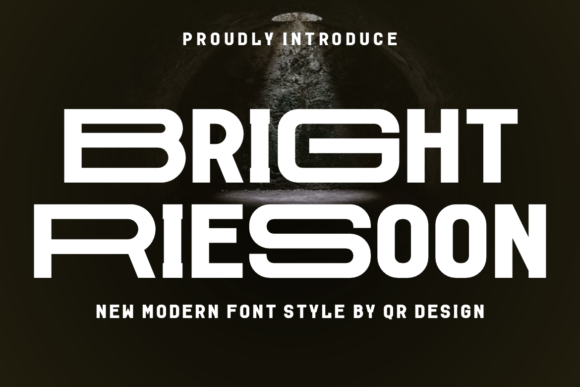
Introducing Bright Riesoon Font: The Ultimate Sans Serif for Stunning Visuals
In the world of typography, fonts play a crucial role in conveying messages, evoking emotions, and creating a lasting impression. When it comes to designing posters, banners, headlines, and other visual content, the right font can make all the difference. This is where Bright Riesoon Font comes into play – a cool and powerful sans serif font that can elevate your designs to new heights.
What is Bright Riesoon Font?
Bright Riesoon Font is a modern sans serif font that boasts a unique and captivating design. Its clean lines, precise curves, and carefully crafted letterforms make it an excellent choice for a wide range of applications, from advertising and branding to publishing and digital media.
One of the standout features of Bright Riesoon Font is its exceptional legibility, even at smaller font sizes. This makes it an ideal choice for body text, captions, and other applications where readability is paramount.
Why Choose Bright Riesoon Font?
So, what sets Bright Riesoon Font apart from other sans serif fonts? Here are just a few reasons why designers and marketers love working with this font:
- Versatility: Bright Riesoon Font is incredibly versatile, making it suitable for a wide range of applications, from posters and banners to digital media and publishing.
- Legibility: The font’s exceptional legibility ensures that your message is conveyed clearly, even at smaller font sizes.
- Modern Aesthetic: Bright Riesoon Font boasts a modern and sleek design that instantly elevates your visual content.
- Easy to Read: The font’s carefully crafted letterforms and precise curves make it easy to read, even for extended periods.
Design Tips for Using Bright Riesoon Font
To get the most out of Bright Riesoon Font, here are some design tips to keep in mind:
- Pair it with contrasting fonts: Combine Bright Riesoon Font with contrasting fonts to create visual interest and hierarchy.
- Experiment with font sizes: Play with different font sizes to create emphasis and draw attention to key messages.
- Use it for headlines and body text: Bright Riesoon Font is suitable for both headlines and body text, making it an excellent choice for a wide range of applications.
- Don’t be afraid to get creative: Bright Riesoon Font is a versatile font that can be used in a variety of creative ways, so don’t be afraid to experiment and try new things.
What Can You Use Bright Riesoon Font For?
Bright Riesoon Font is an incredibly versatile font that can be used for a wide range of applications, including:
- Posters and flyers: Create eye-catching posters and flyers that grab attention and convey your message.
- Banners and signage: Use Bright Riesoon Font for banners and signage that requires clear and legible text.
- Headlines and titles: Add a touch of modernity to your headlines and titles with Bright Riesoon Font.
- Digital media: Use Bright Riesoon Font for digital media, such as social media graphics, videos, and presentations.
- Publishing: Bright Riesoon Font is suitable for publishing applications, such as books, magazines, and newspapers.
In conclusion, Bright Riesoon Font is a powerful and versatile sans serif font that can elevate your visual content to new heights. Its exceptional legibility, modern aesthetic, and versatility make it an excellent choice for a wide range of applications. Whether you’re a designer, marketer, or simply looking for a font that can help you create stunning visuals, Bright Riesoon Font is definitely worth checking out.